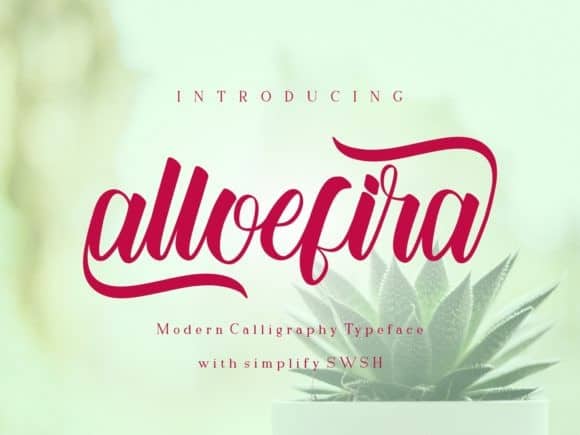
Alloefira Calligraphy Font
Introducing the new romantic calligraphy font, Alloefira Font. Alloefira Font is a modern and natural script font inspired by vintage style of handwriting. It’s unique, quirky yet still classy.